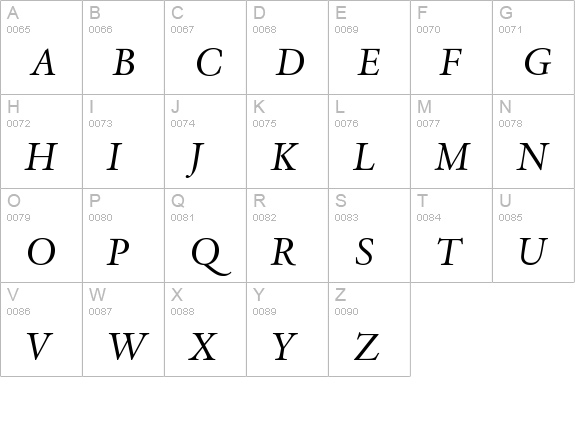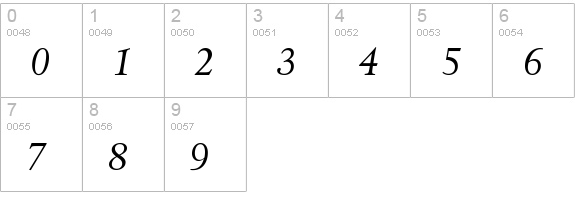
DTLVandenKeereD-Italic is a distinctive, italic variant in the DTLVandenKeereD typeface family \xE2\x80\x94 well suited to design and typography projects.
DTLVandenKeereD-Italic is a sophisticated and elegant font that exudes a sense of classic beauty and refinement. Its delicate italic style adds a touch of grace and sophistication to any design project. The flowing lines and intricate details of this font make it perfect for adding a touch of luxury to invitations, signage, branding, and more. And the best part? DTLVandenKeereD-Italic is completely free to download at FontsMarket.com. Whether you're a professional designer looking to add a touch of elegance to your projects or a hobbyist looking to enhance your creative endeavors, this font is a fantastic choice. Download it today and elevate your designs with the timeless beauty of DTLVandenKeereD-Italic.